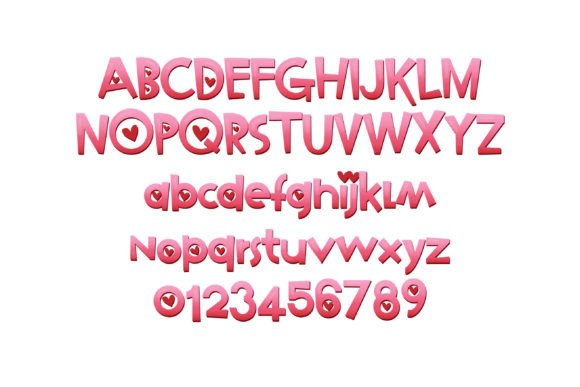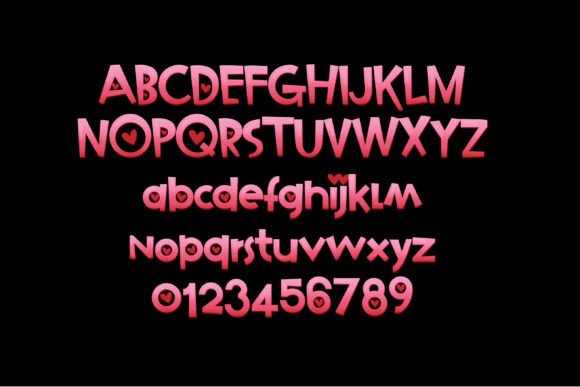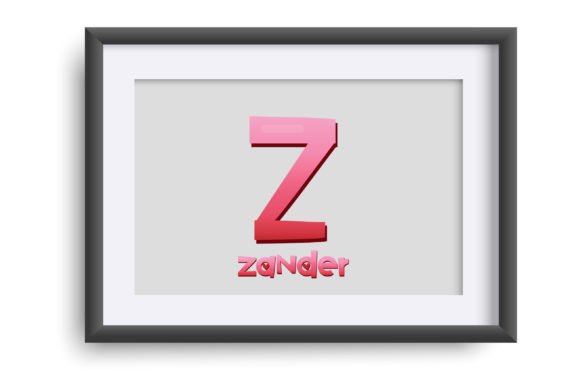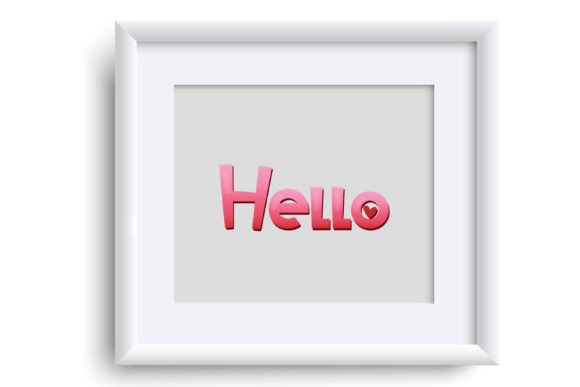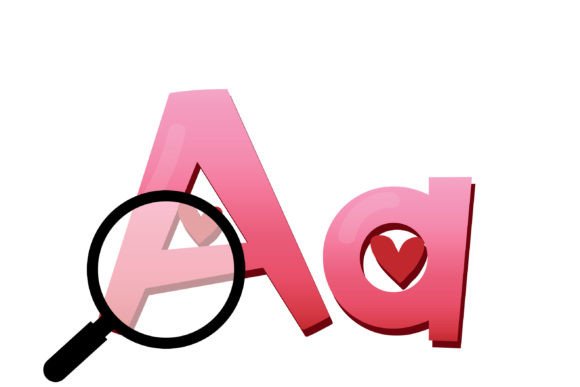
Introduction to Jovial Love Font
Jovial Love is an eye-catching and stunning color font that will brighten up any design.
Its vibrant colors and unique letterforms create a sense of fun and playfulness Use this font to add a pop of color and personality to your projects, and watch them come to life.
Key Features of Jovial Love Font